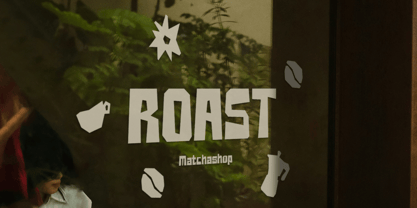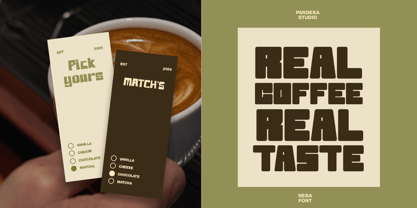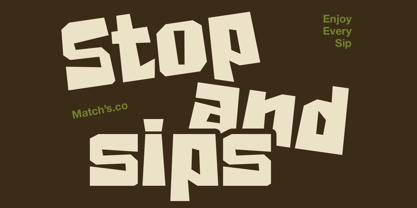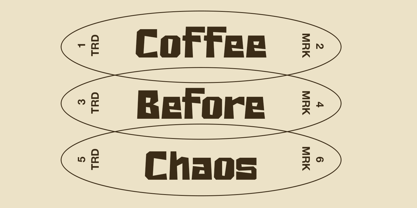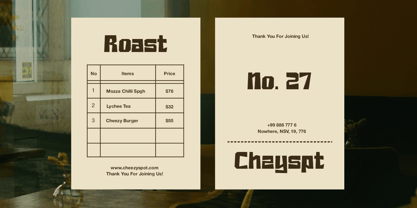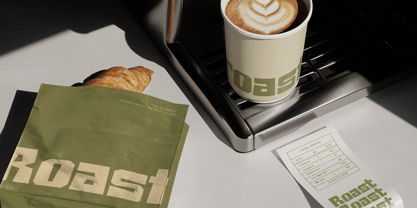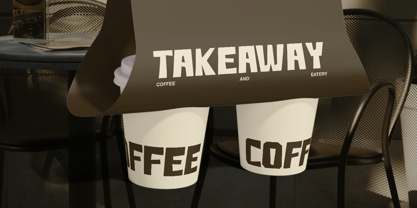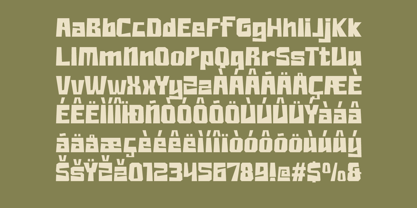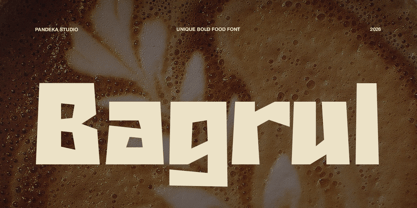
Bagrul
Bagrul is a bold paper cut display font inspired by layered paper shapes and handcrafted cut-out lettering. Featuring chunky, angular letterforms with a distinctive geometric character, it brings a playful yet strong visual presence to headlines, making it suitable for designs that need a creative, tactile, and eye-catching style.
Available in 1 style: Regular, Bagrul is suitable for display typography, logo design, branding, coffee shop projects, food packaging, menus, posters, signage, social media graphics, promotional materials, product labels, editorial designs, and creative campaigns. Its bold and compact letterforms work especially well for large-scale text and visual identities across both print and digital applications.